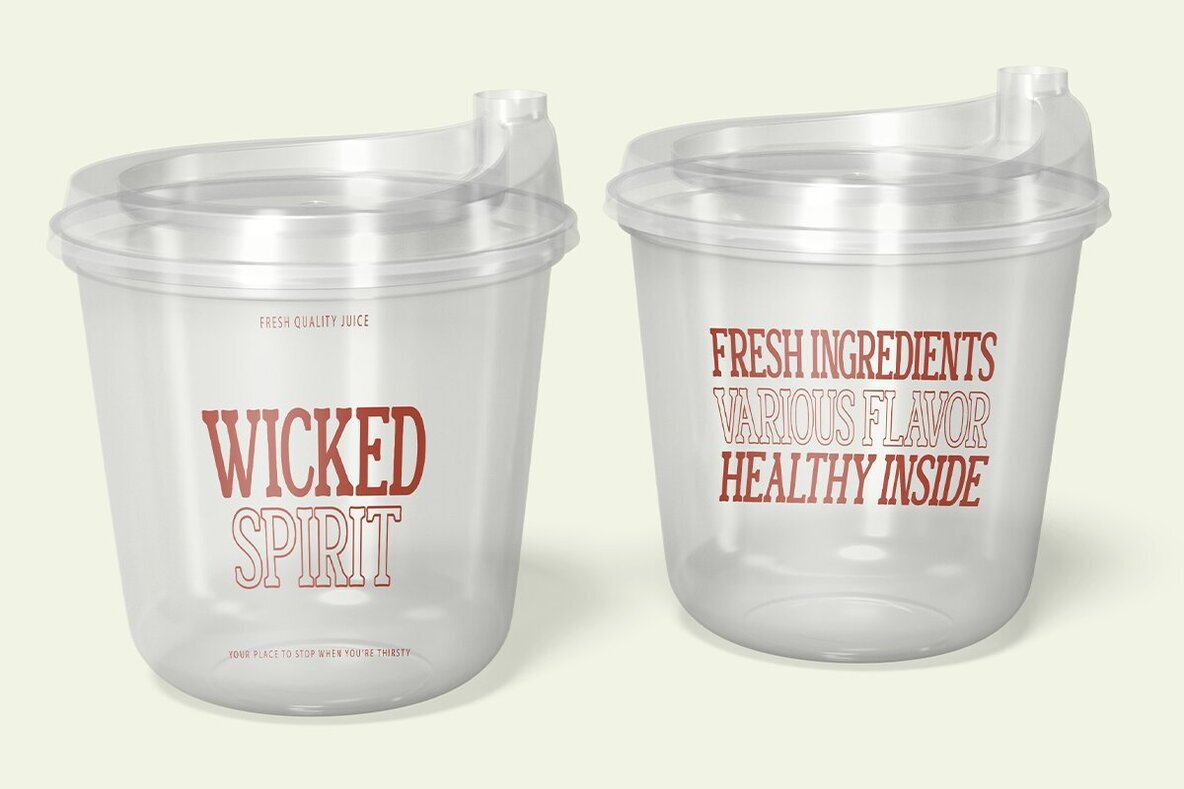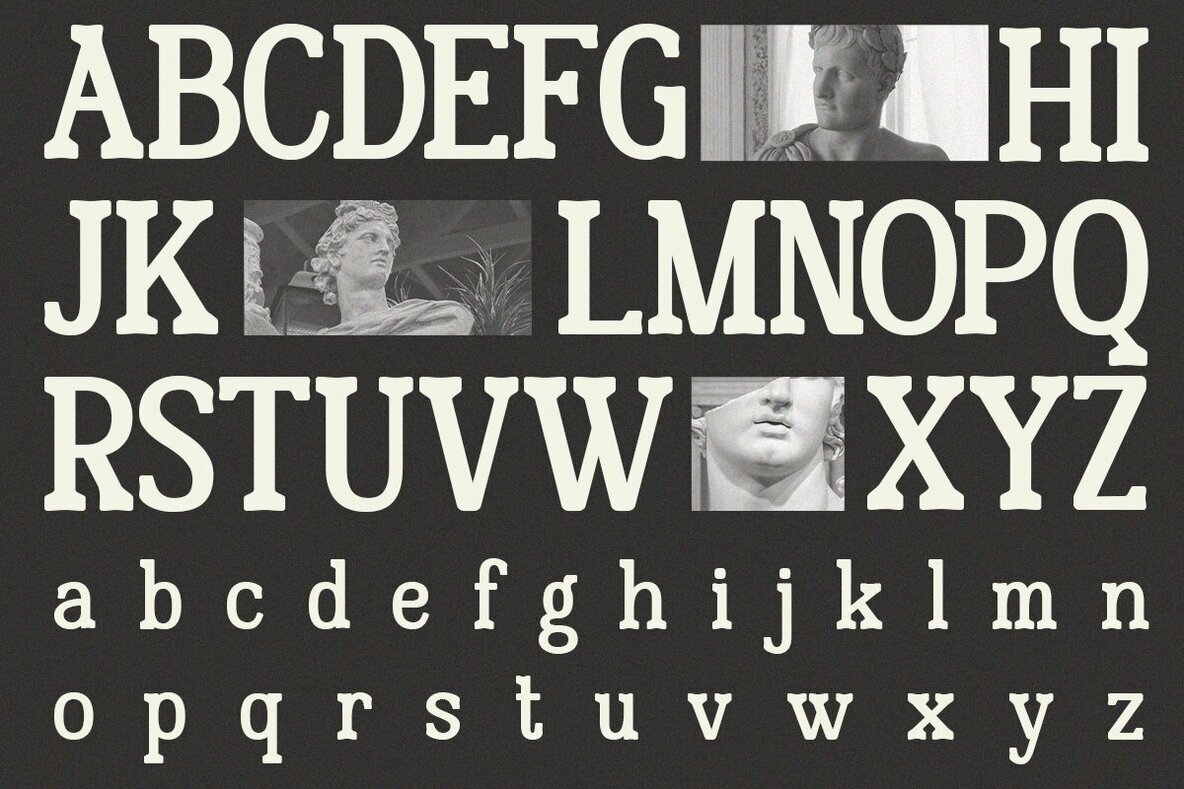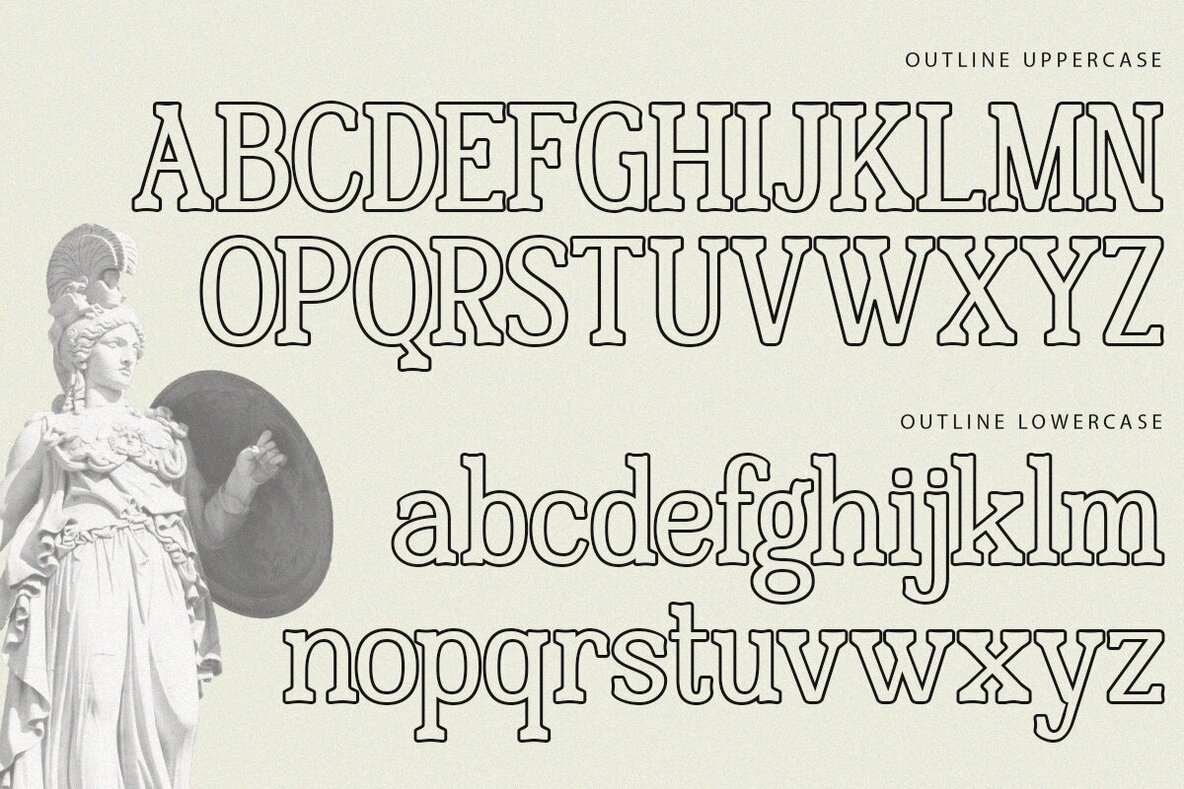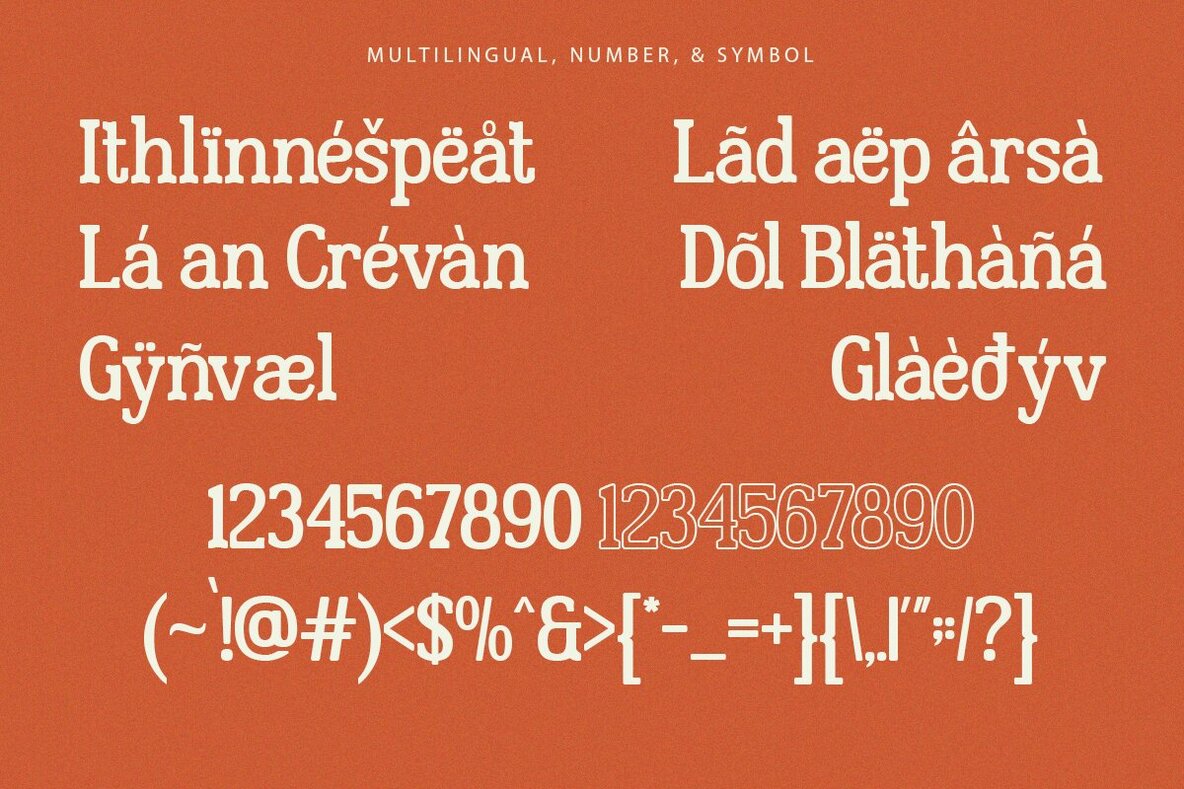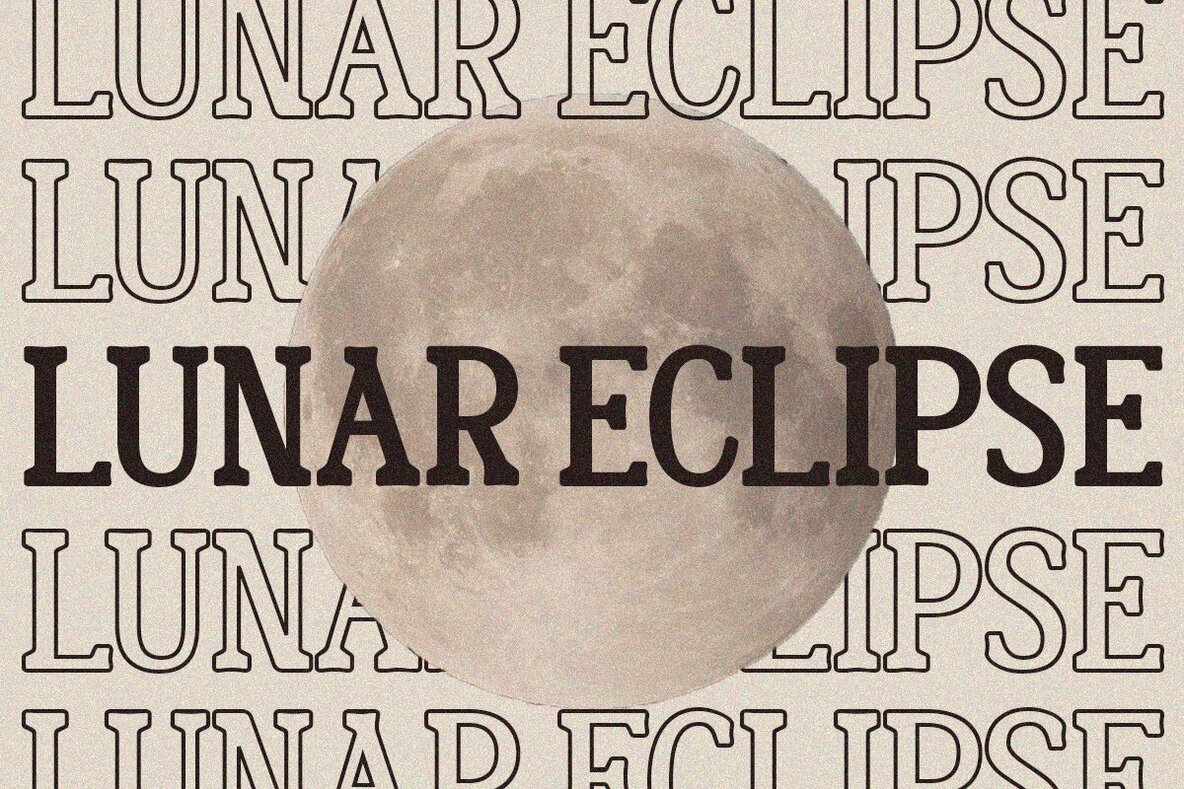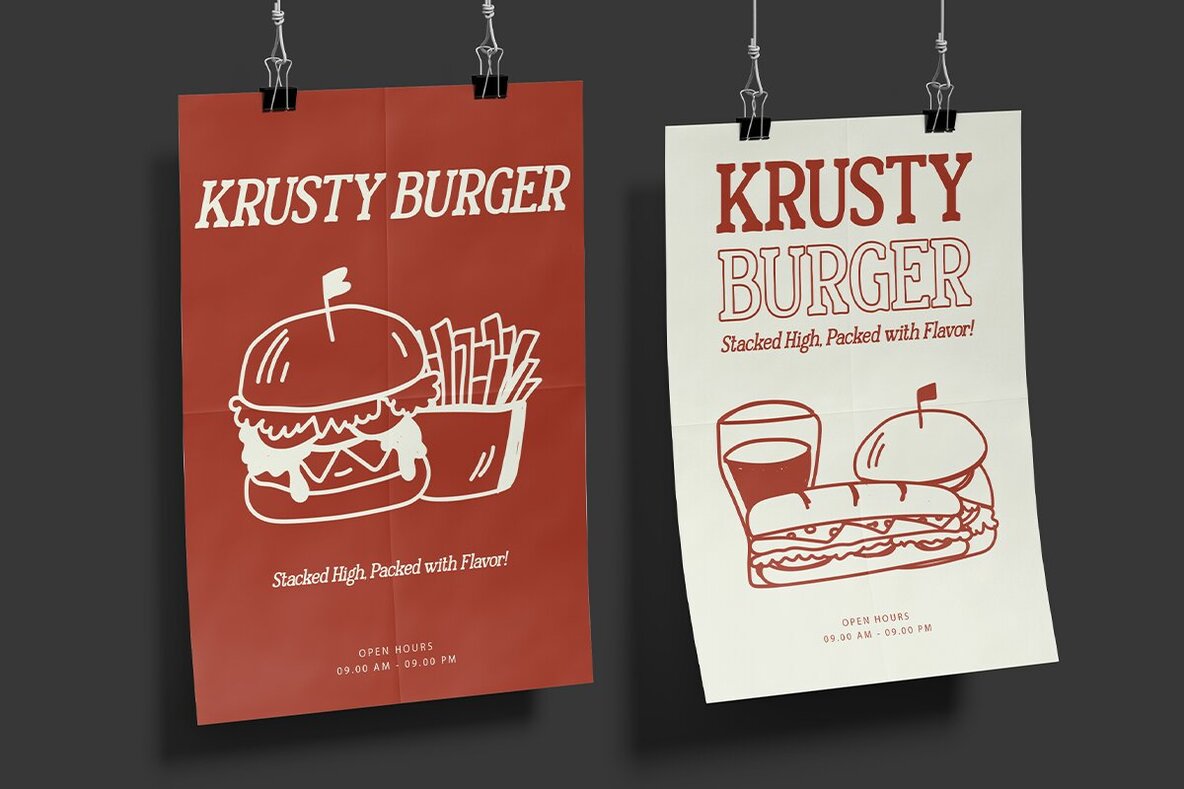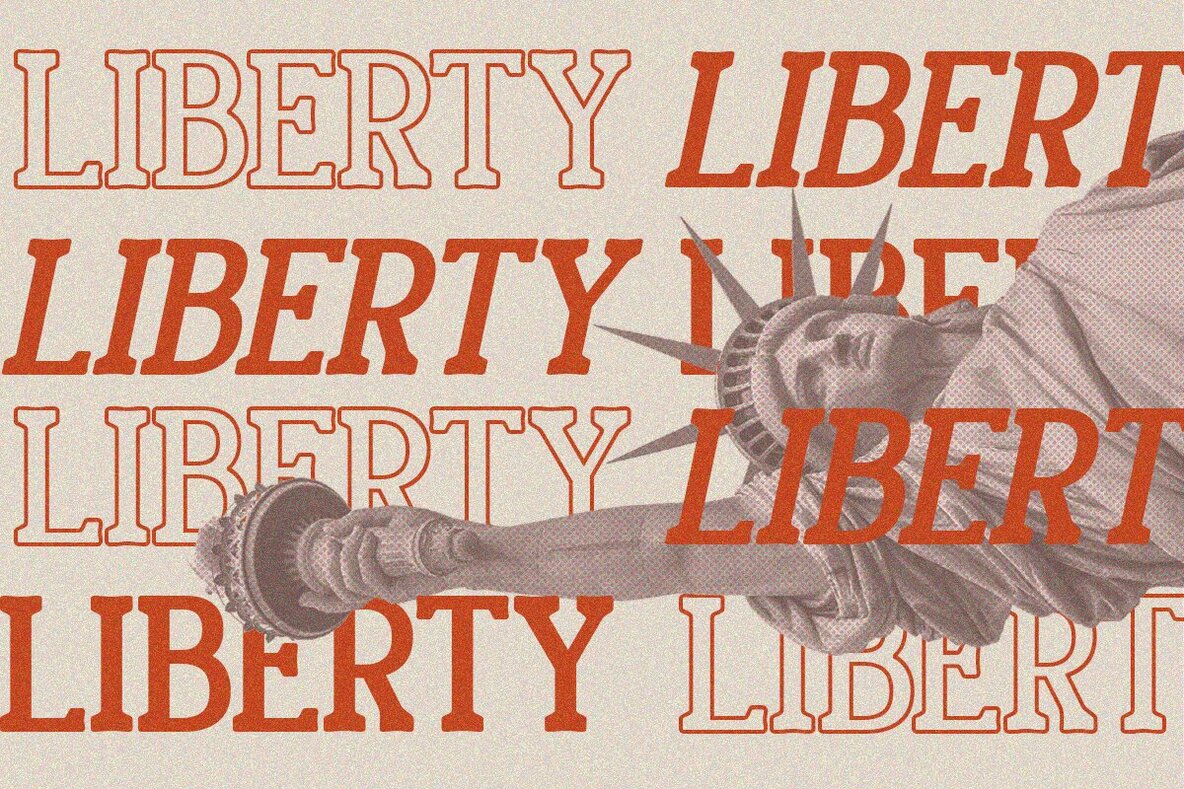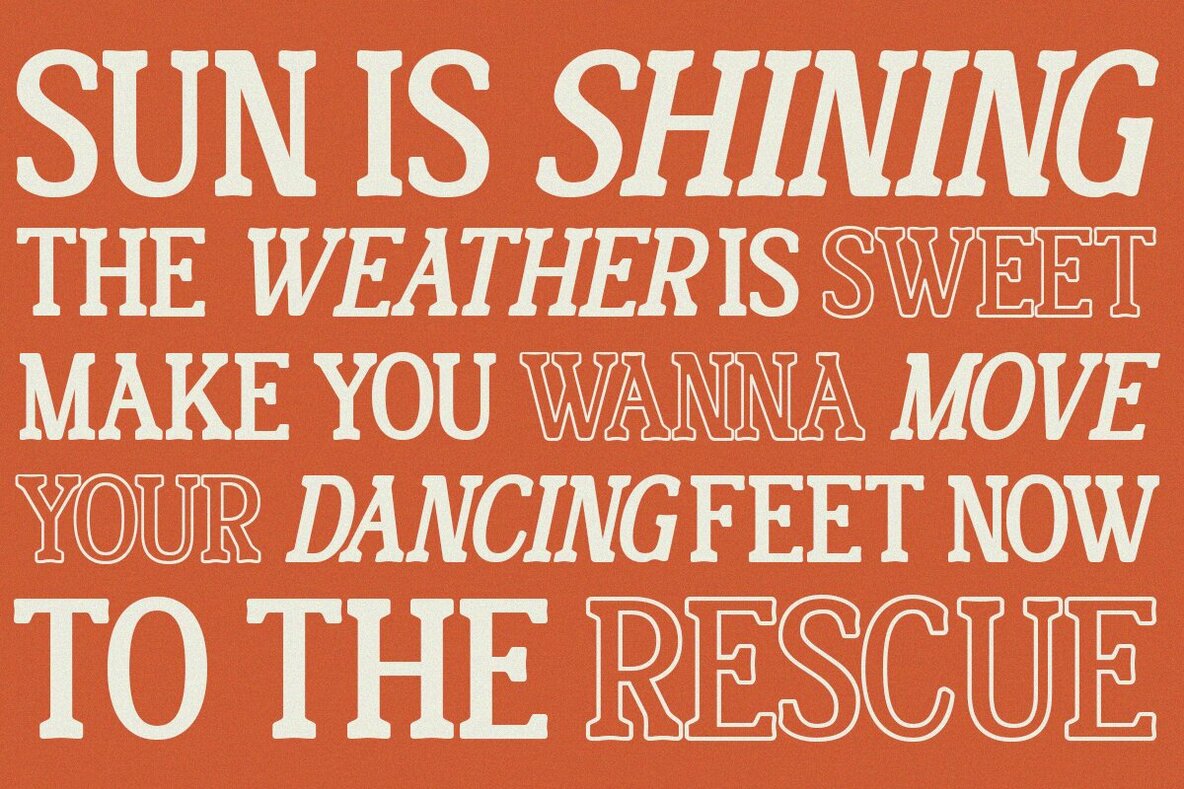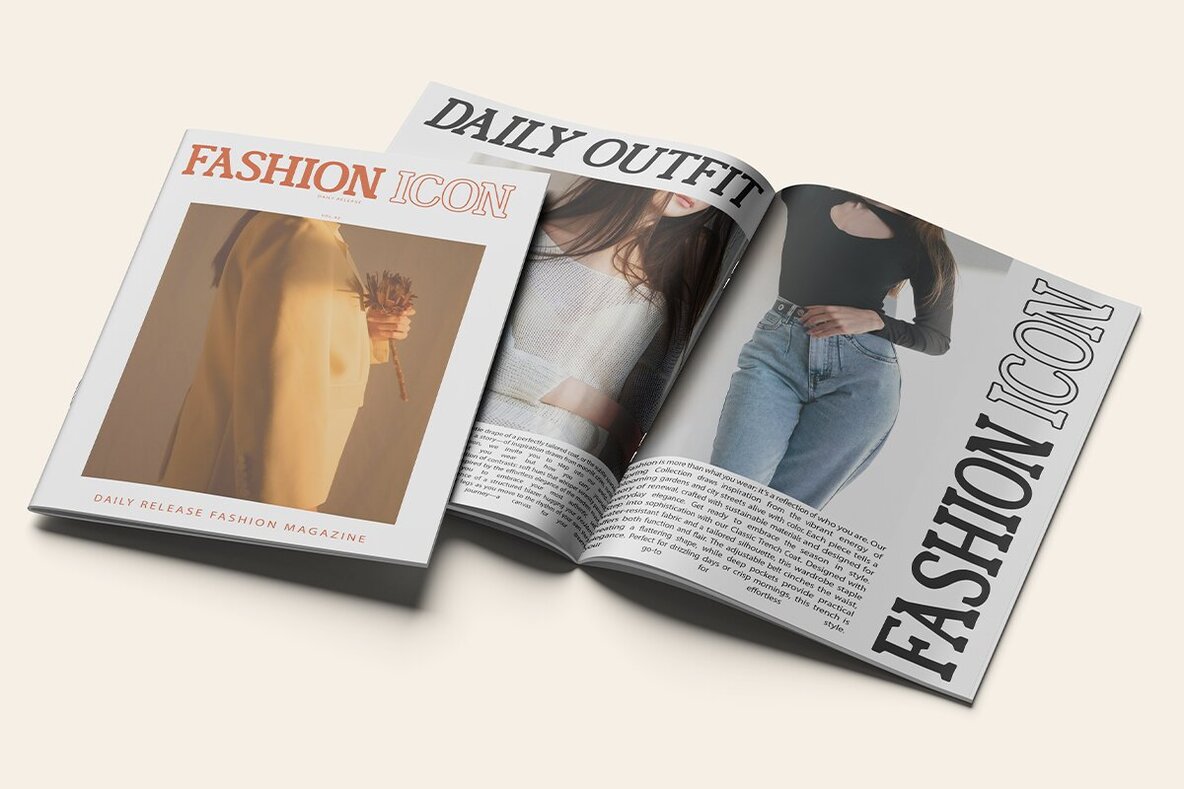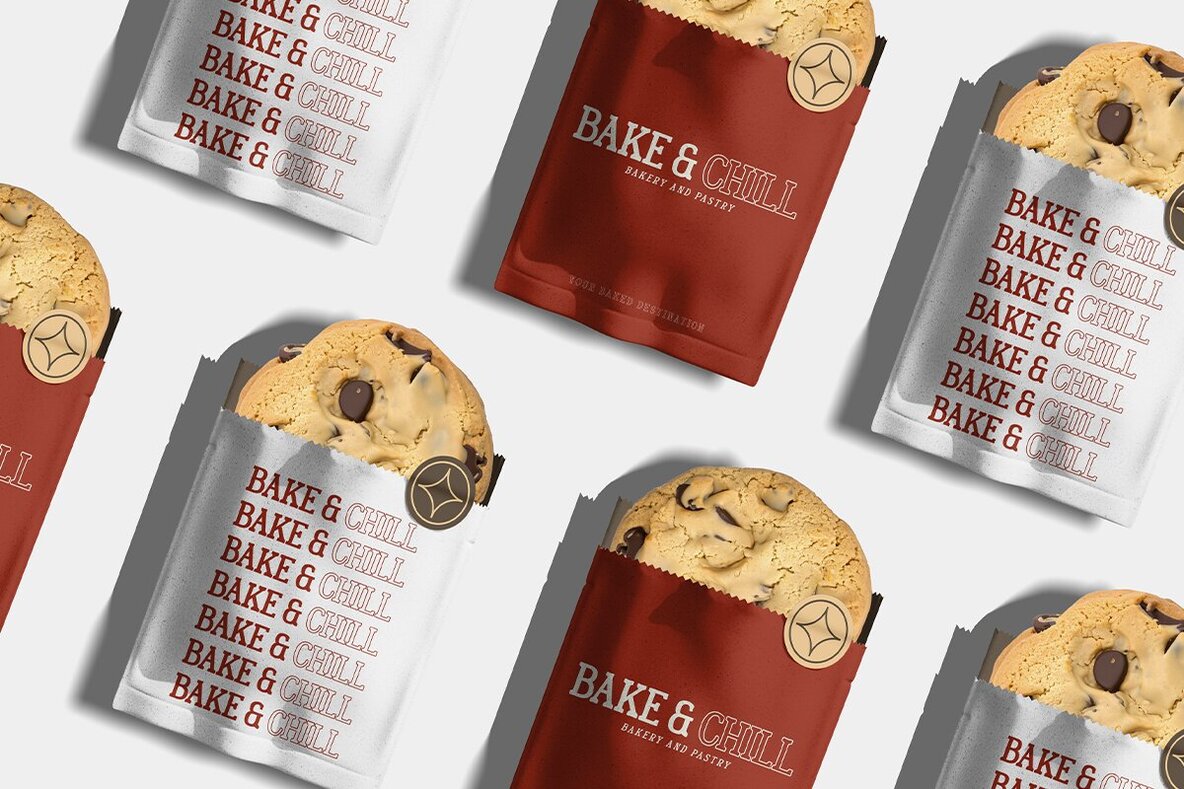
Second Choice Font
Second Choice Regular
Second Choice Italic
Second Choice Outline
Second Choice is a stylish slab serif font, drawing inspiration from vintage letterpress advertising. This typeface captures the essence of an era when advertisements were dynamic and descriptive. Ideal for a range of creative projects, Second Choice suits logos, quotes, social media posts, blog content, branding, magazine layouts, wedding invitations, and more.
The font comes in three distinct styles, allowing for versatile design applications. It supports multiple languages and is PUA encoded, ensuring wide accessibility for designers around the globe. Whether you're working on a nostalgic project or aiming to infuse your designs with a retro flair, Second Choice offers the character and versatility needed to make your work stand out.